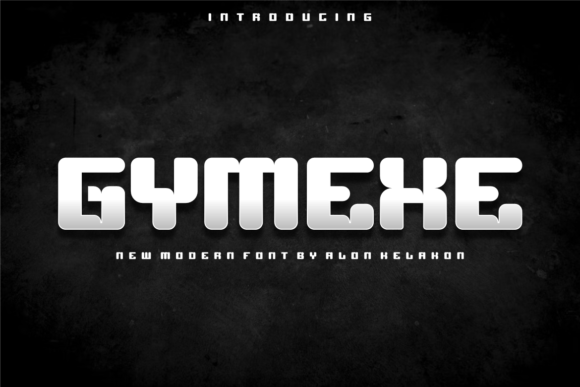
Journey into the world of captivating typography with Gymexe Font, an extraordinary display font family crafted for the modern era. Designed with meticulous care, Gymexe possesses an innate ability to transform your creative concepts into visual masterpieces. It's the ultimate weapon in your typographic arsenal, empowering you to conquer any design challenge with flair and finesse.
Gymexe Font isn't just another font; it's an experience. Each meticulously crafted character exudes confidence, inviting you to express your individuality with a touch of sophistication. Its crisp lines and carefully balanced proportions create a symphony of visual harmony, ensuring your words command attention and leave a lasting impression.
Step into the spotlight with Gymexe Font, the perfect choice for cover letters that demand to be noticed. Its distinctive charm and undeniable presence will make your application stand out from the crowd, giving you the edge you need to secure that dream job. With Gymexe Font as your ally, you'll craft a cover letter that radiates professionalism and creativity, leaving hiring managers captivated from the very first glance.
But Gymexe Font's brilliance doesn't stop there. It's a versatile chameleon, effortlessly adapting to a myriad of design projects. Whether you're crafting eye-catching logos, designing captivating posters, or creating social media graphics that pop, Gymexe Font is your trusted companion. It effortlessly elevates ordinary designs into extraordinary creations, turning your vision into reality with effortless grace.
With Gymexe Font, you're not just downloading a font; you're unlocking a world of endless possibilities. Unleash your imagination and embark on a typographic adventure where creativity knows no bounds. Embrace the power of Gymexe Font and let your designs shine brighter than ever before.